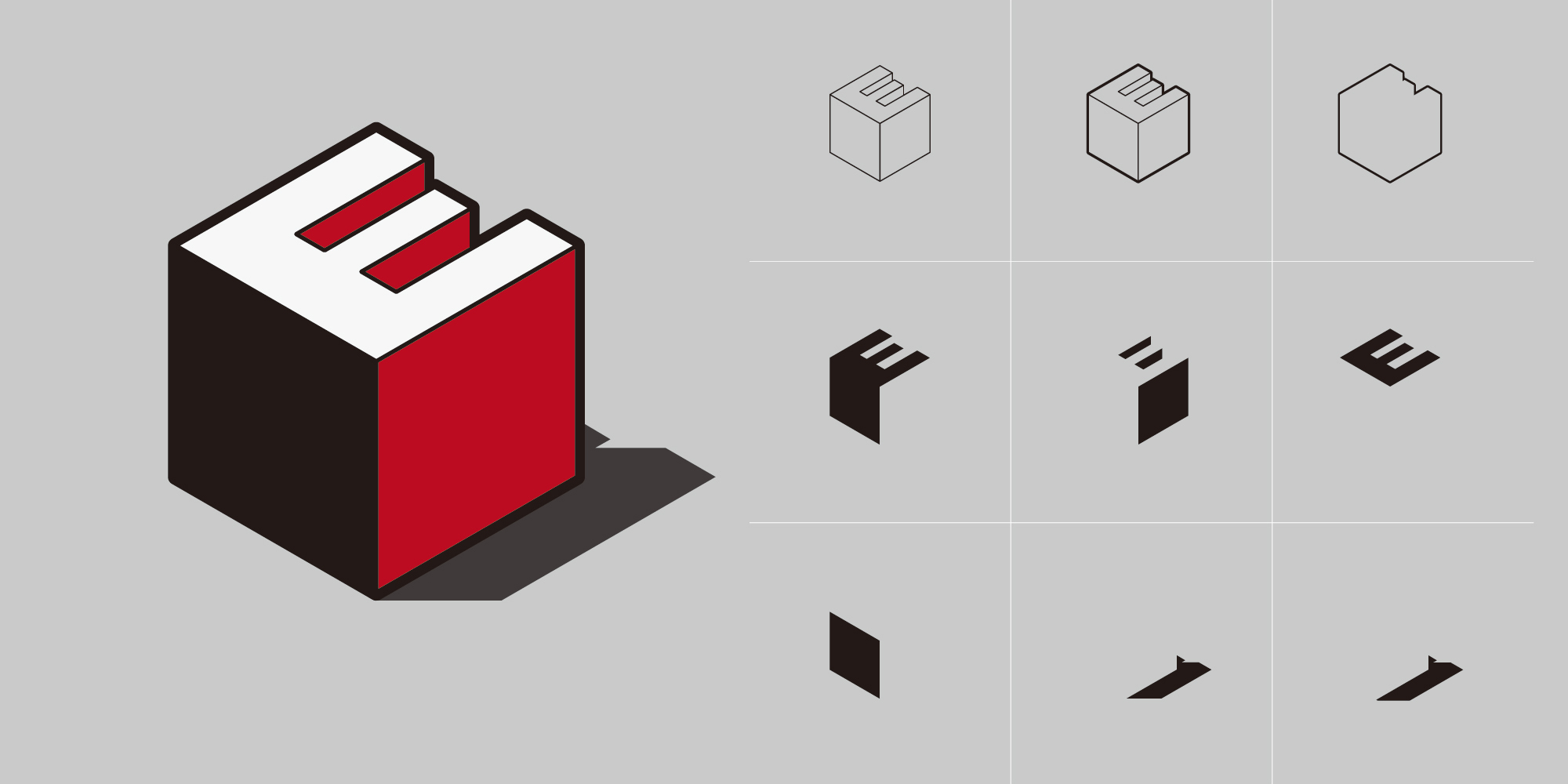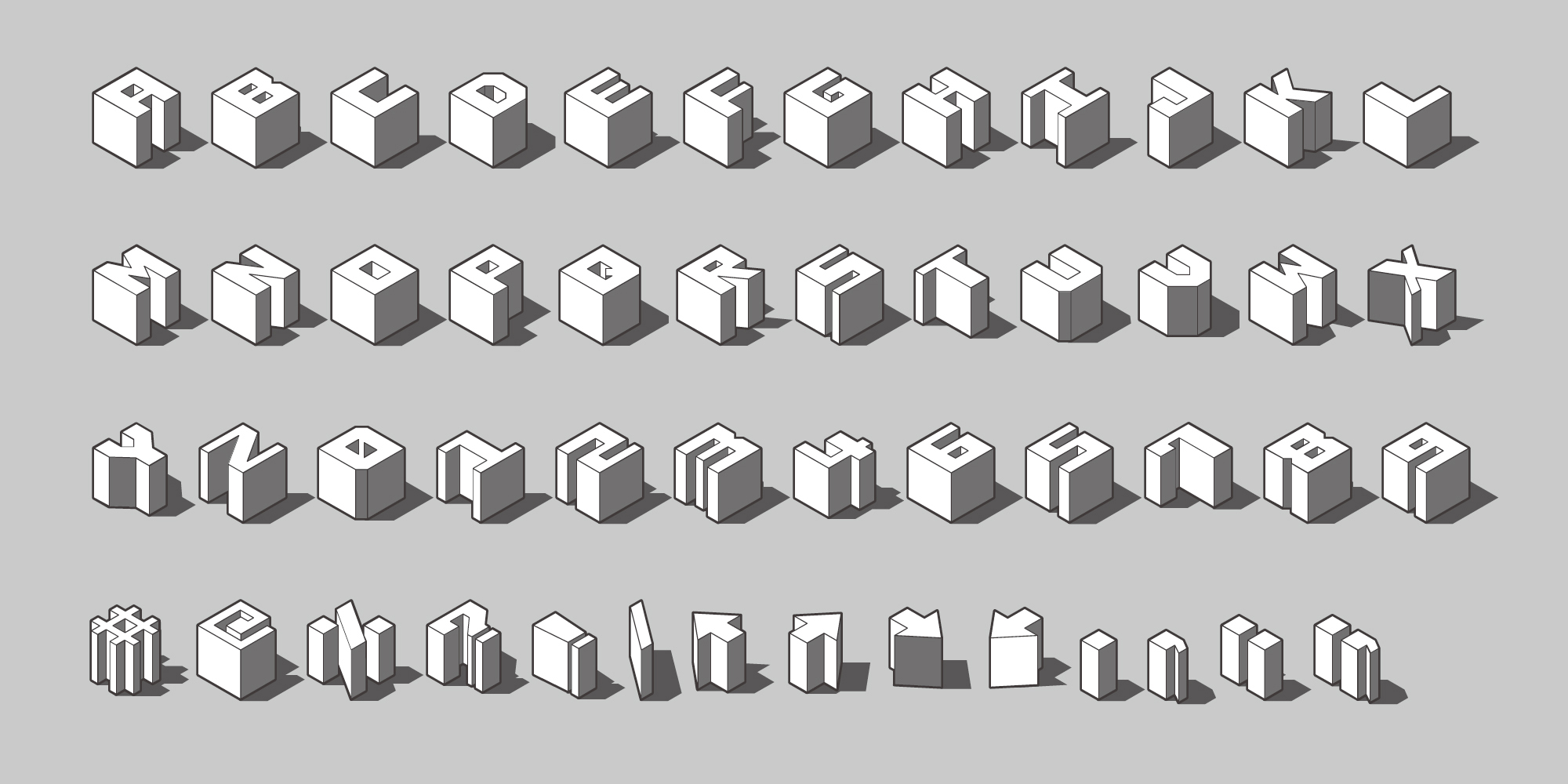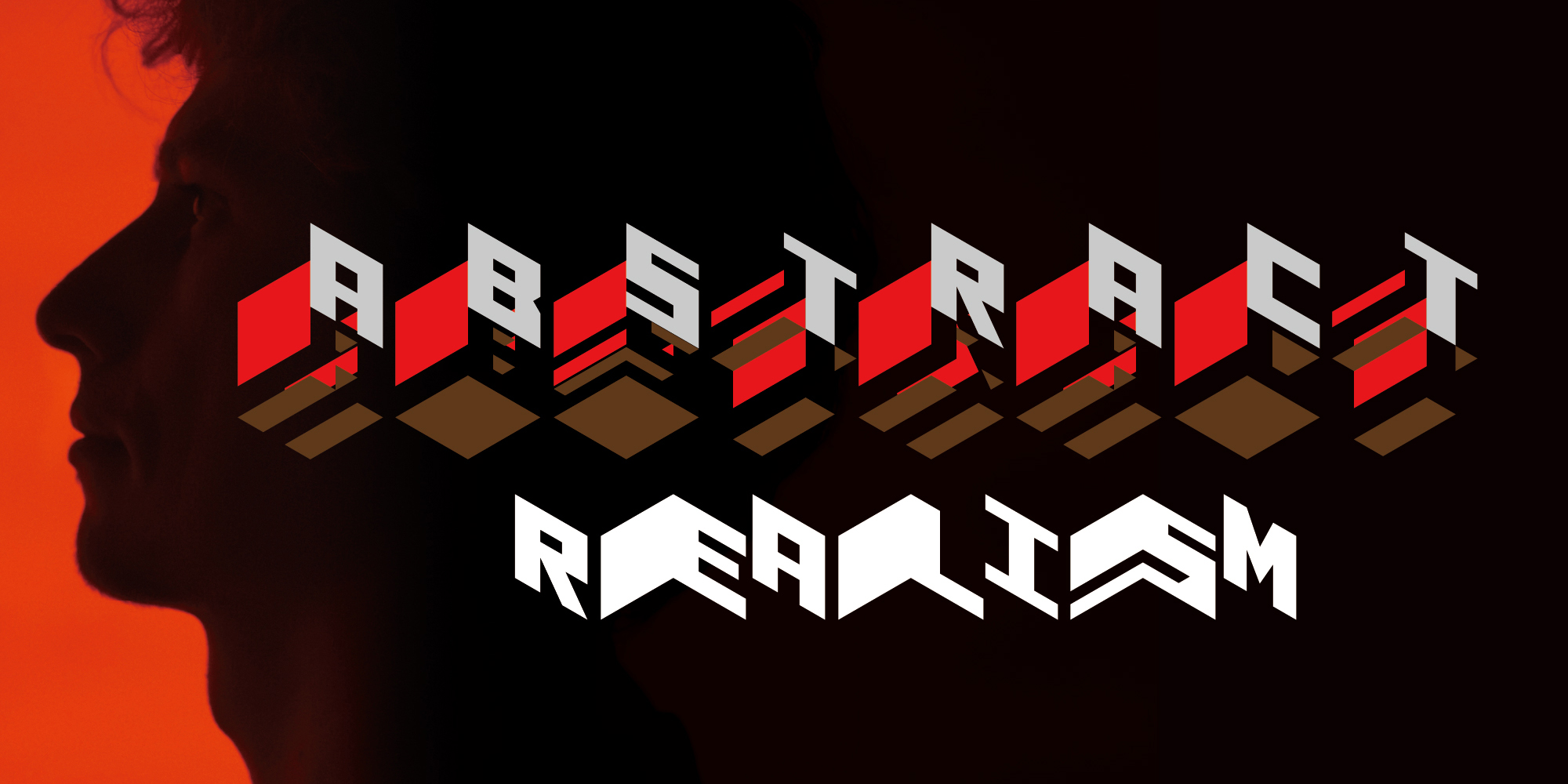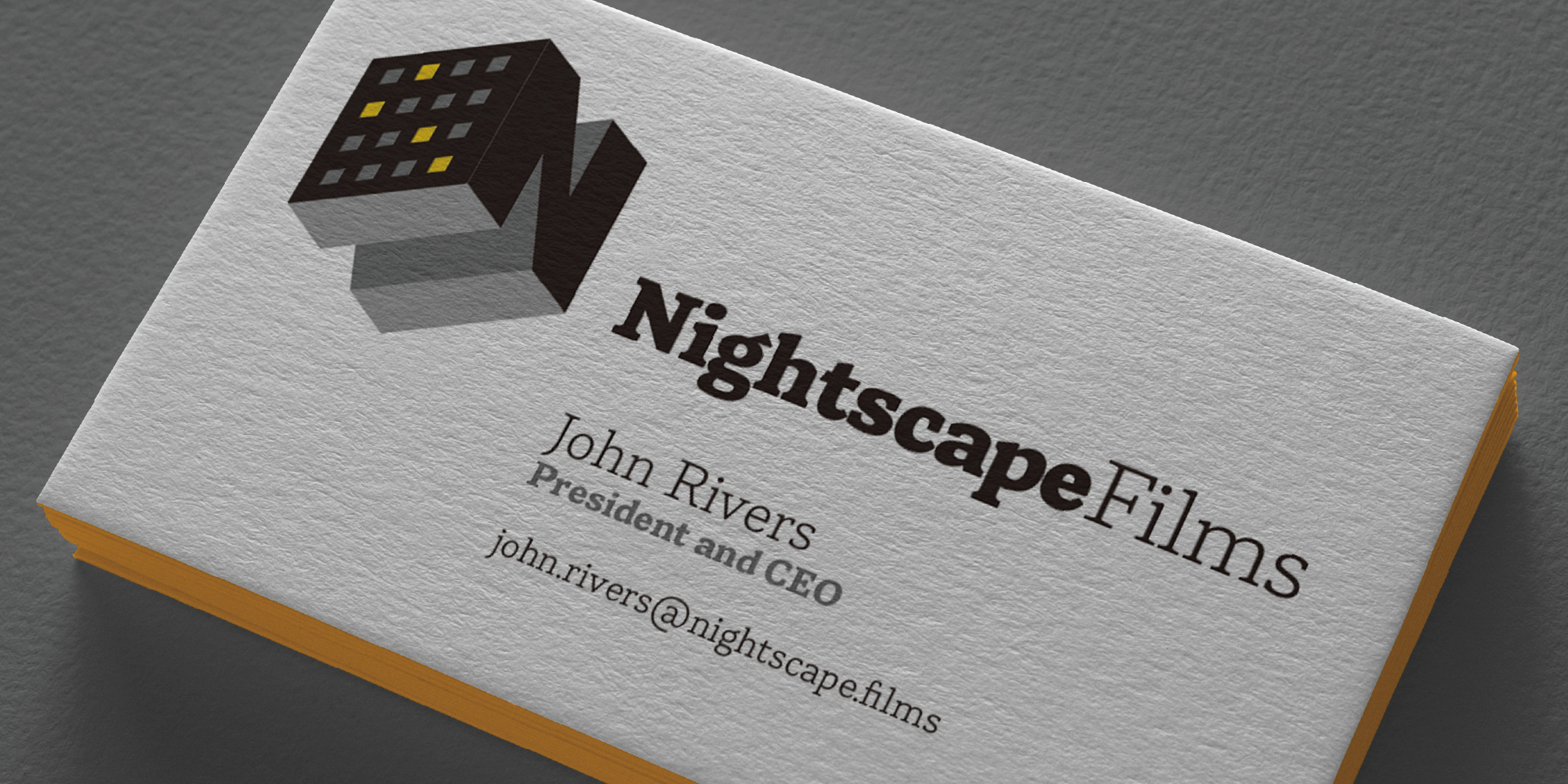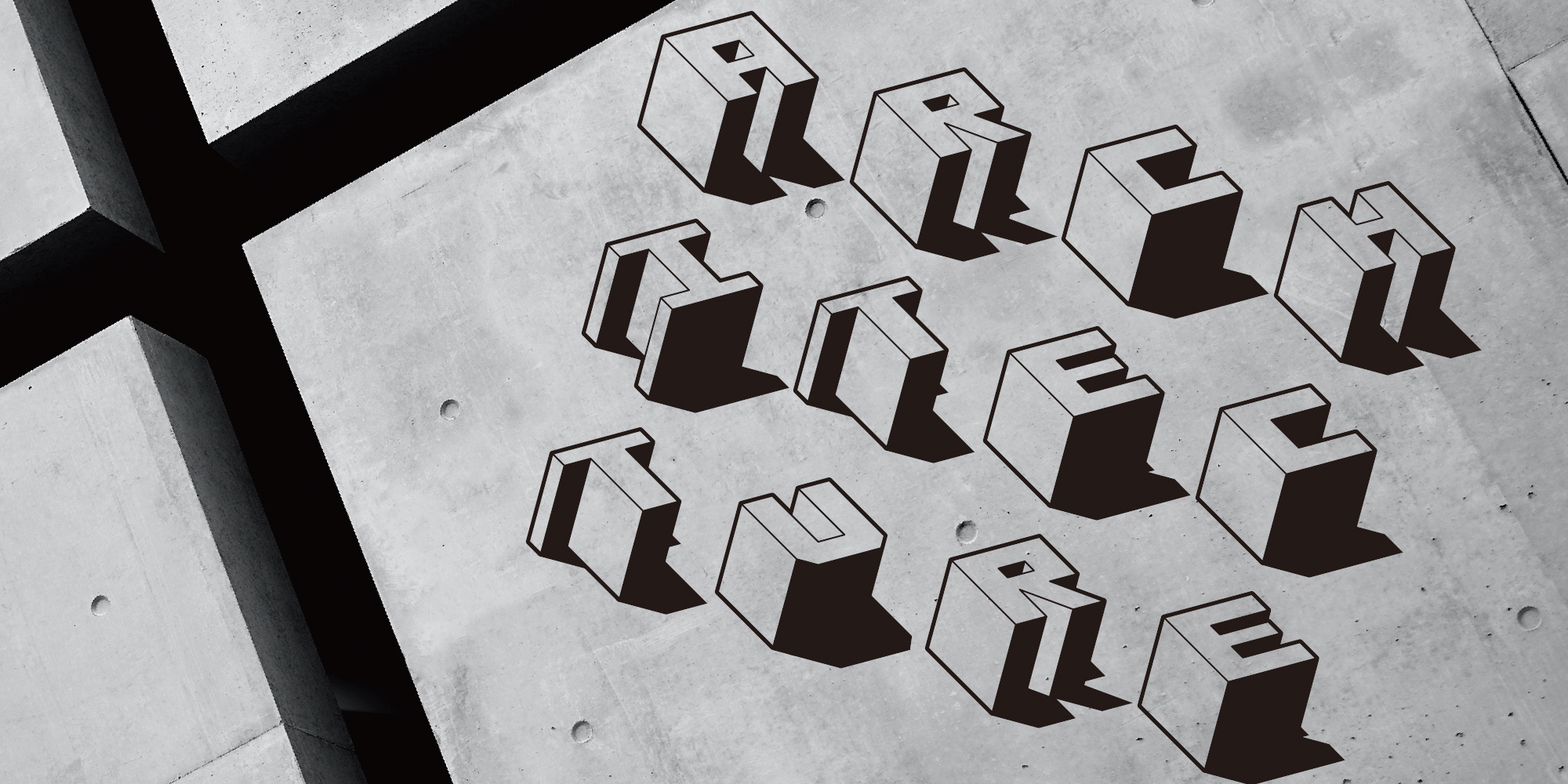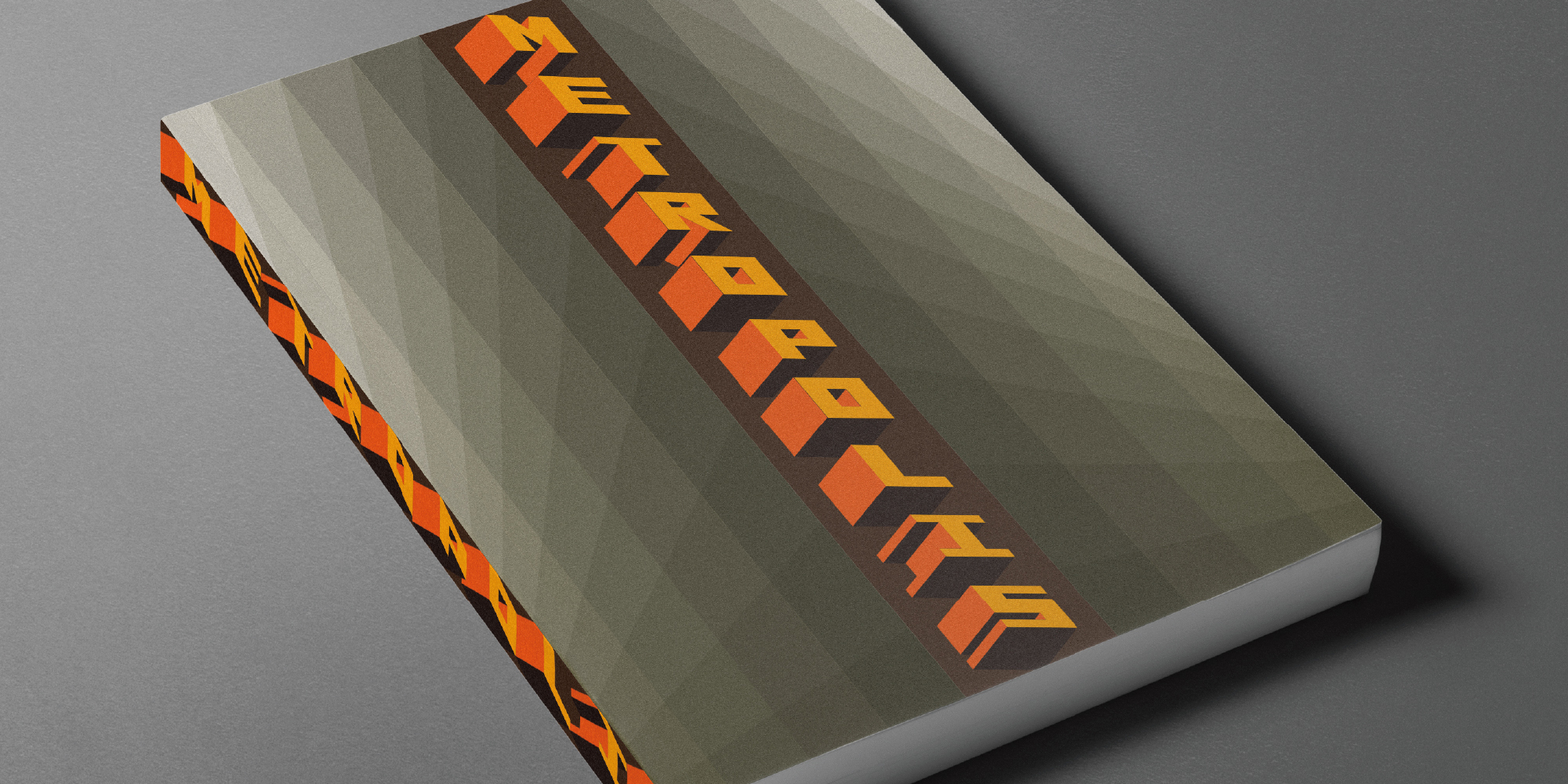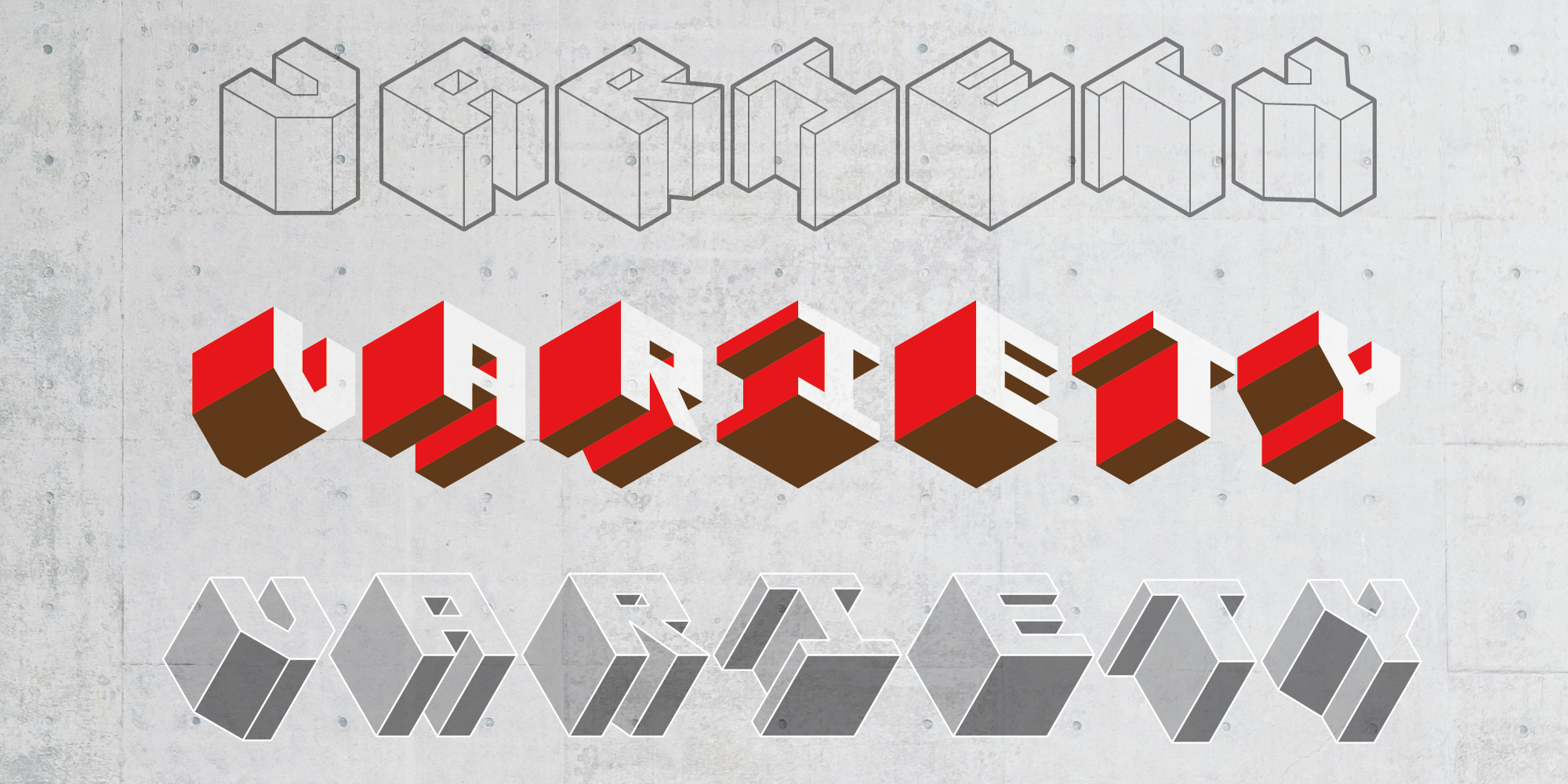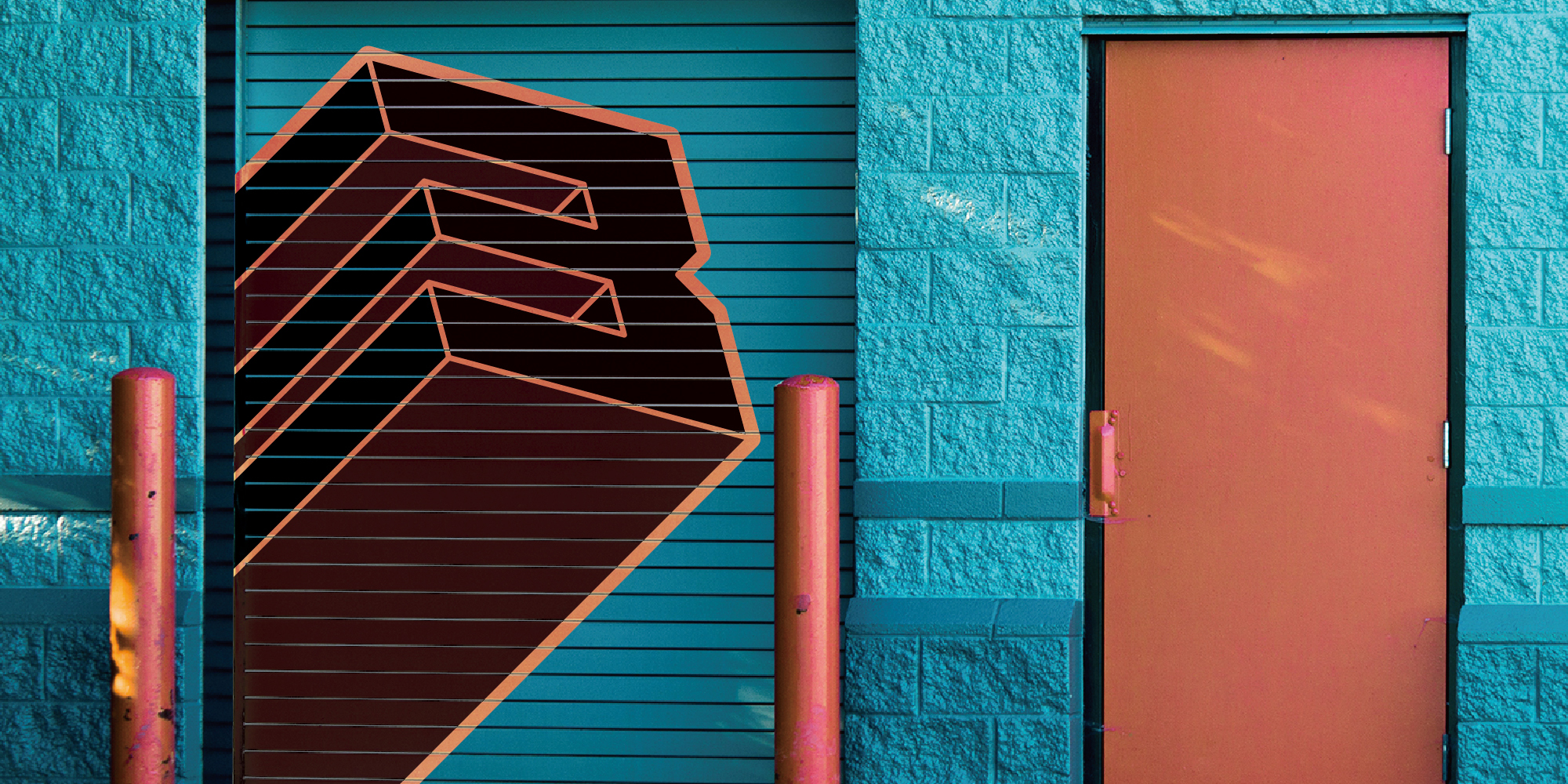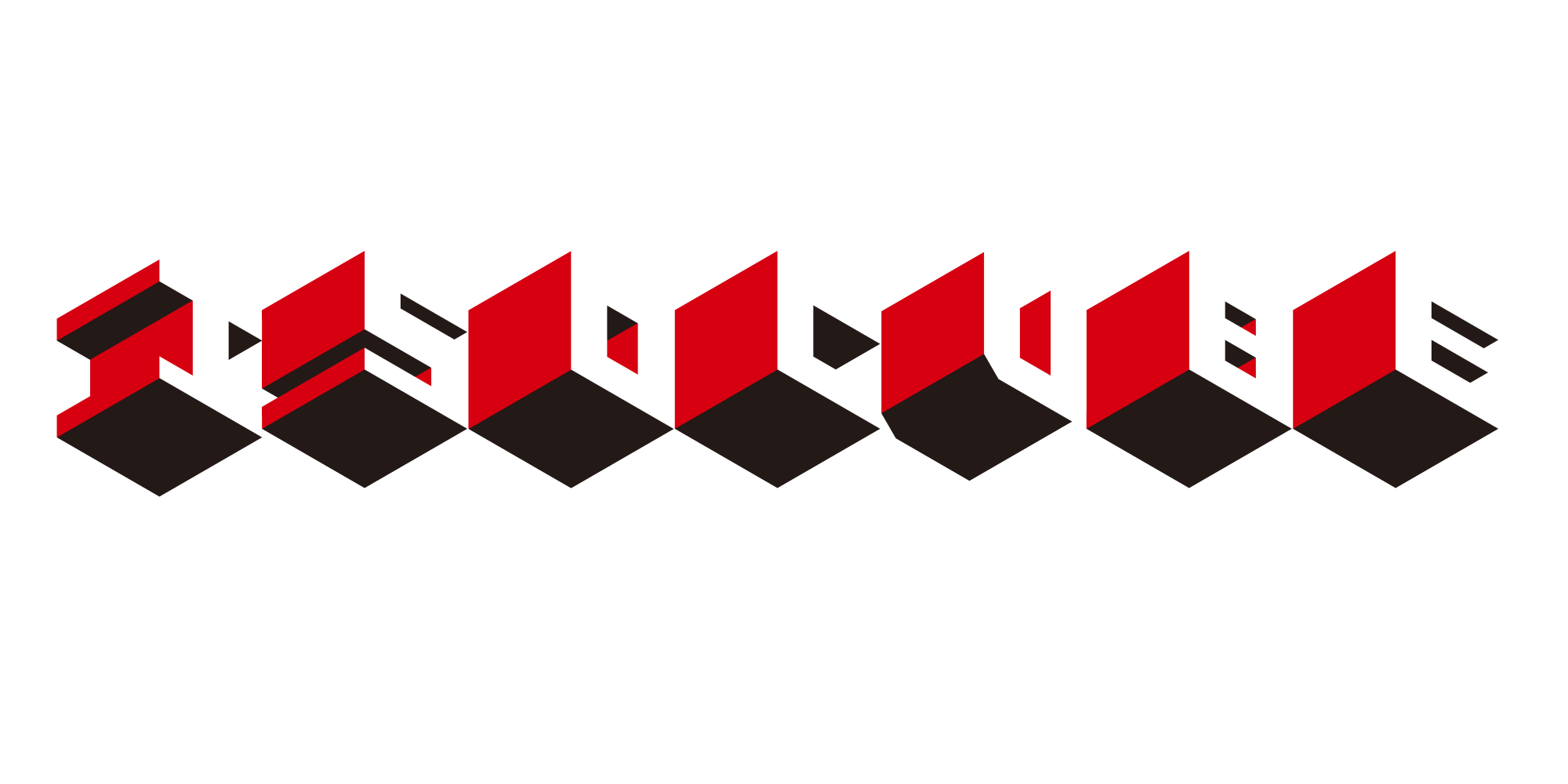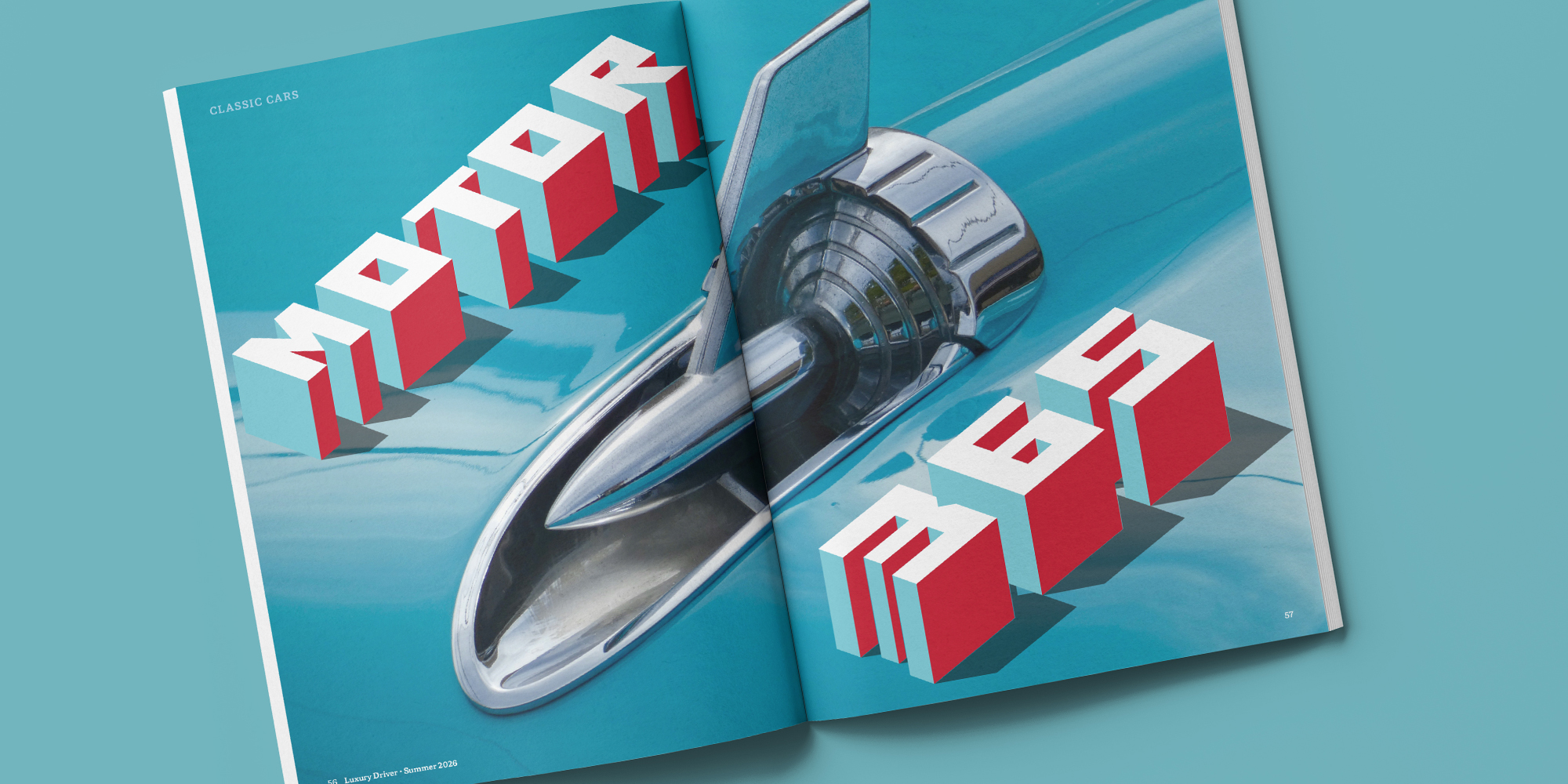
Isocube
Isocube is a striking, layered isometric display typeface designed for making bold statements in identity design, publication design, advertising, and sign design.
Create stunning, customizable designs with this versatile 9-layer font. Stack multiple layers and mix and match them to achieve your desired aesthetic. Rotate individual characters or words for fresh combinations, and convert the font to outlines to stretch or shorten letters for even more creative effects.